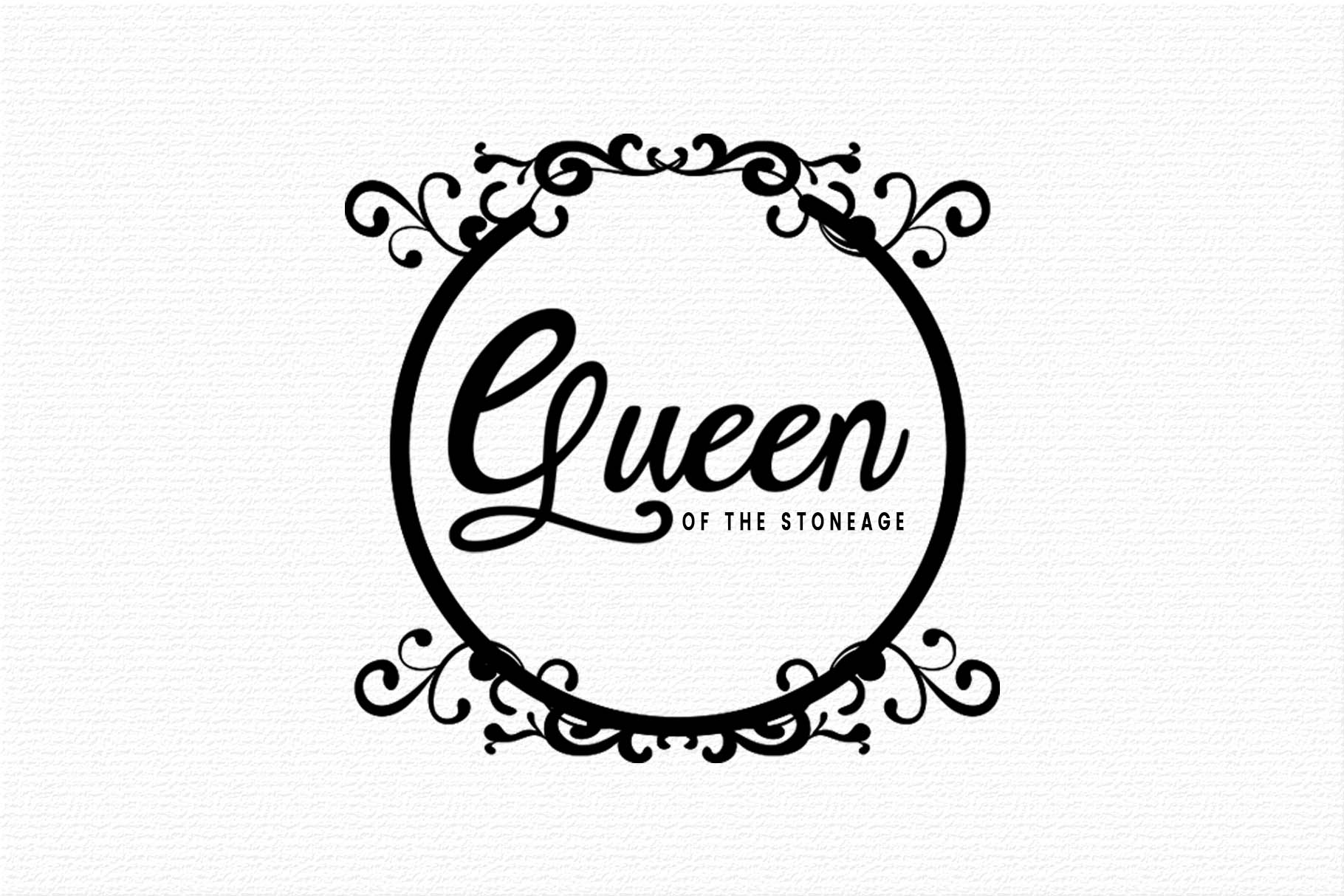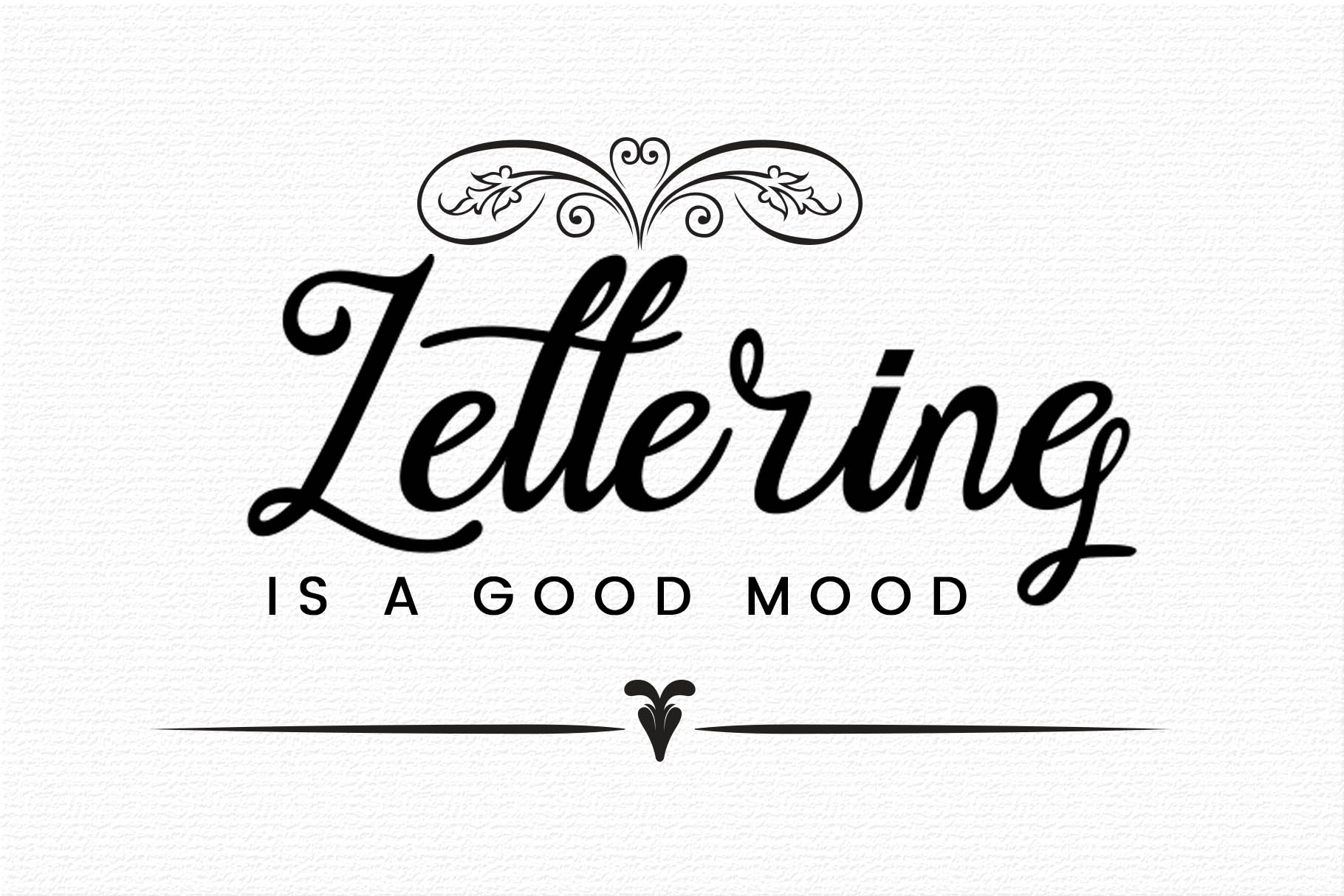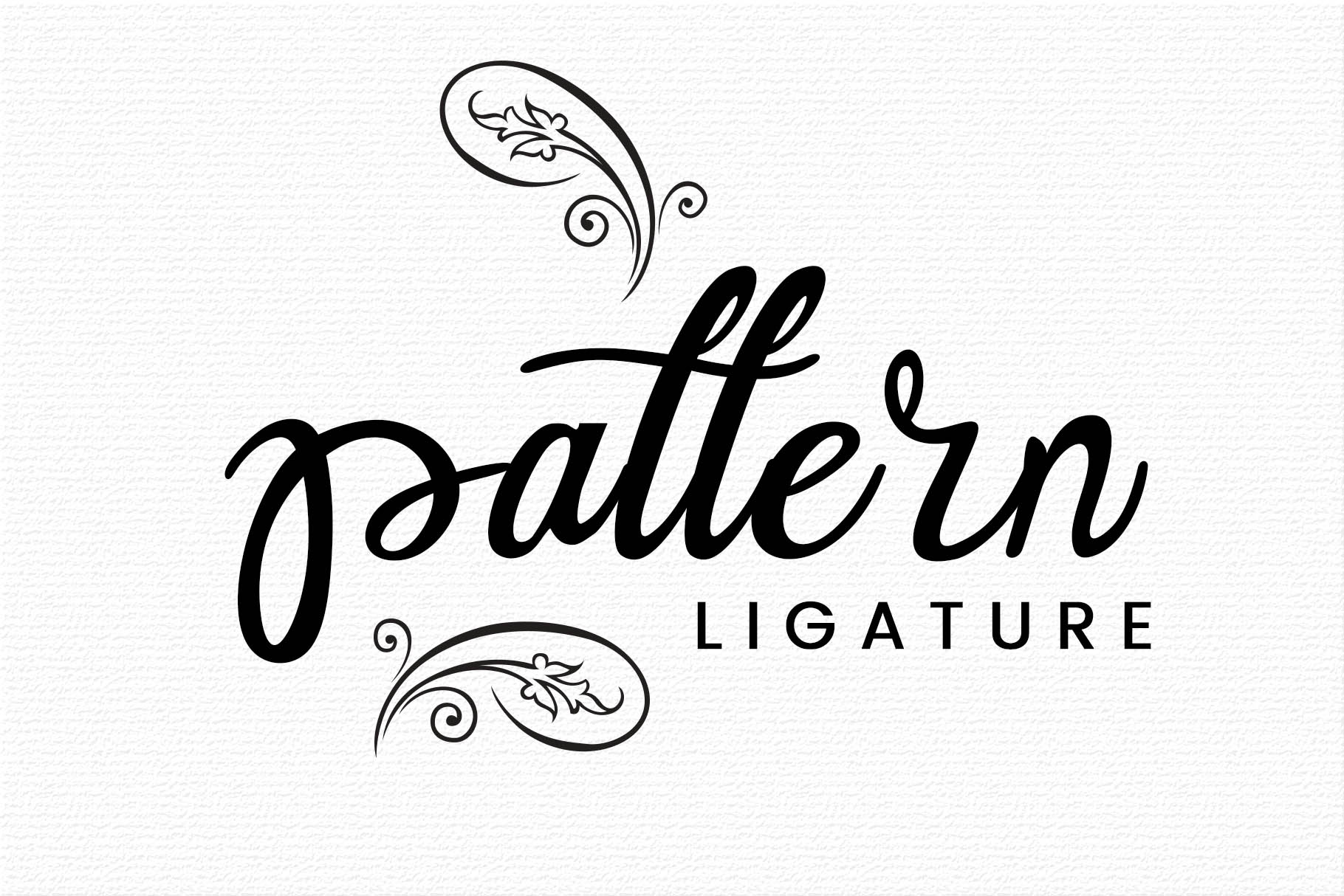
Keith Font
About Keith Font
Keith is a gorgeous script font, perfect for headlines and displays. This font has a classic appeal, and looks gorgeous in both modern and classic design scapes.